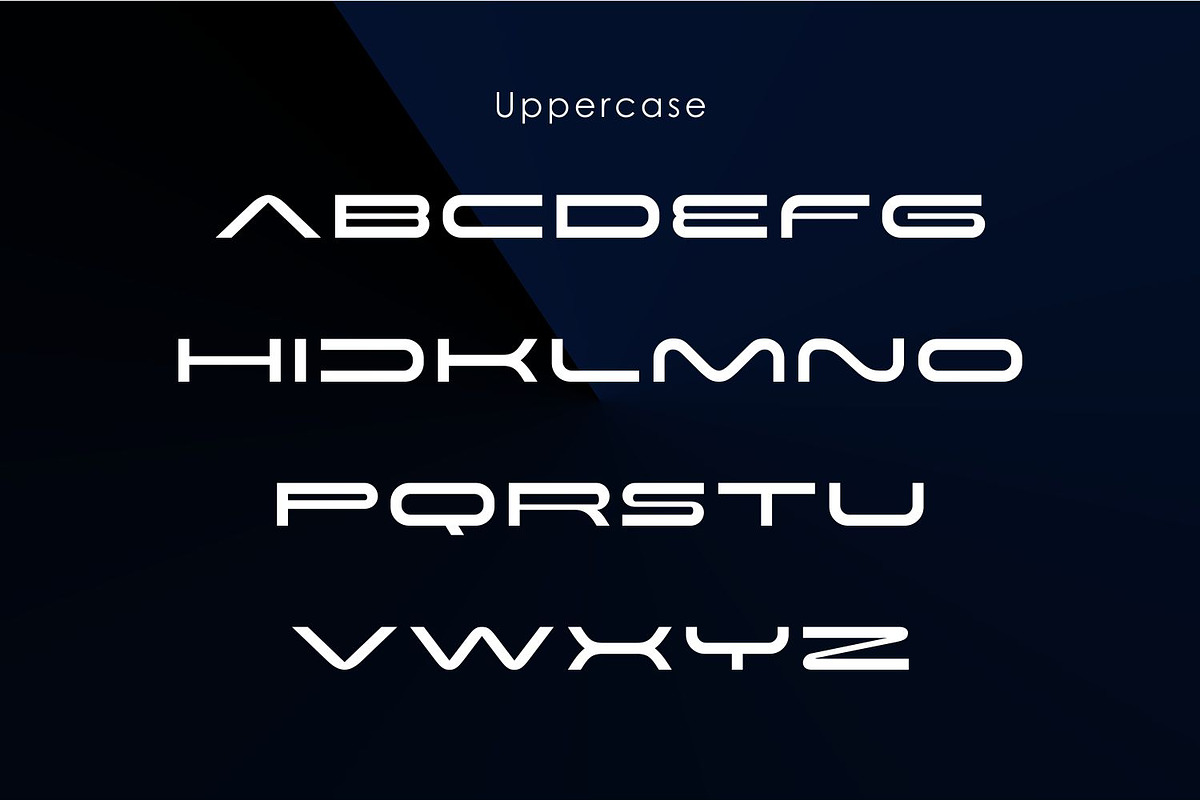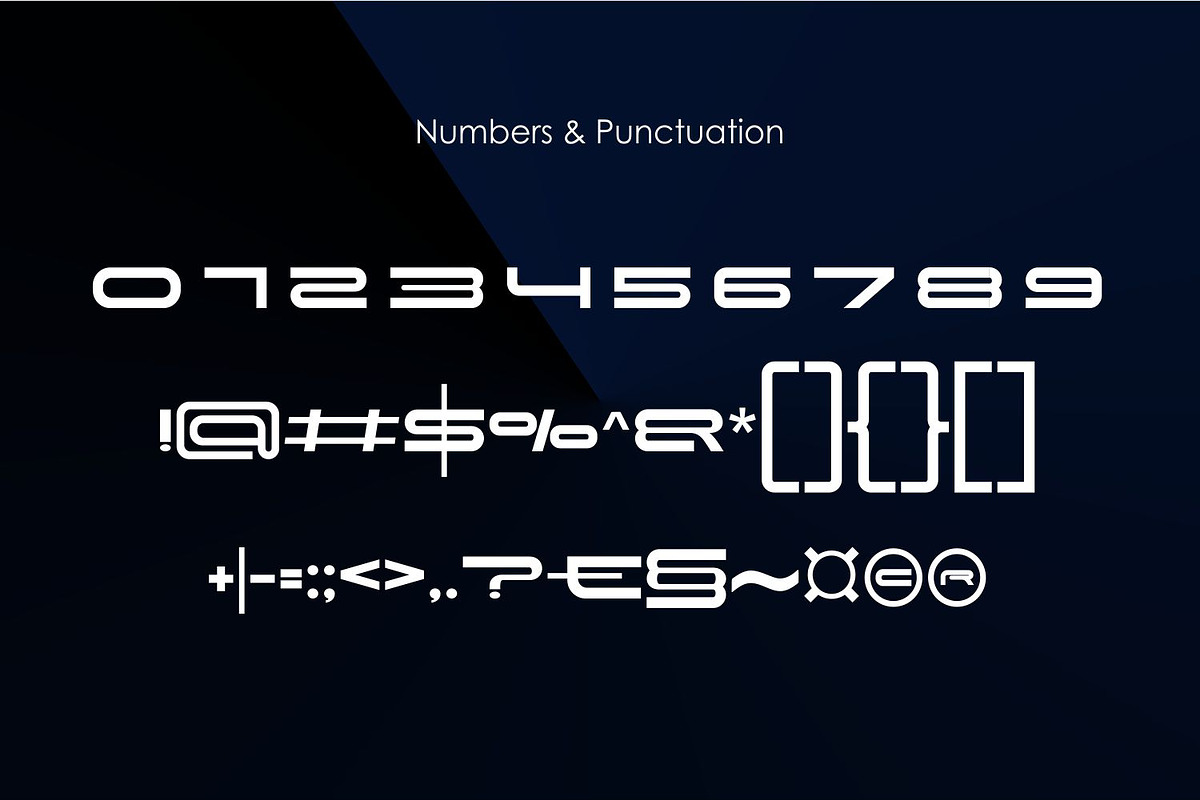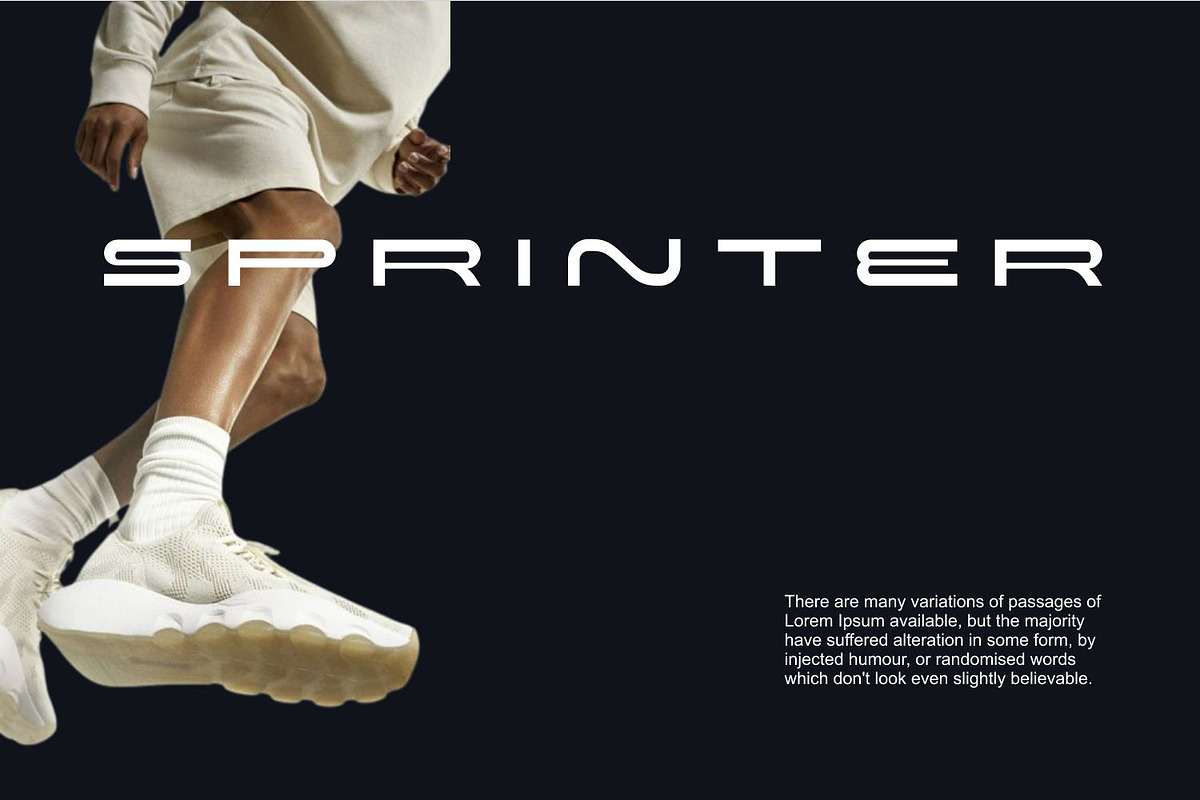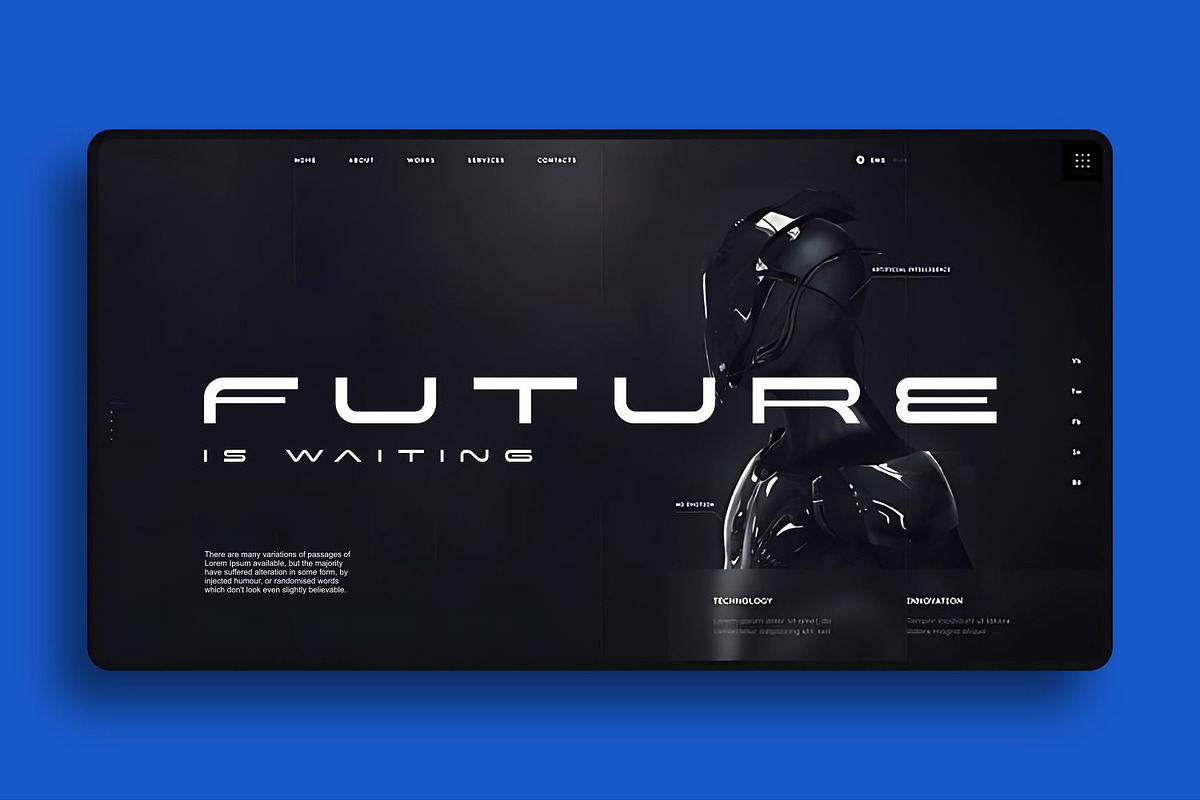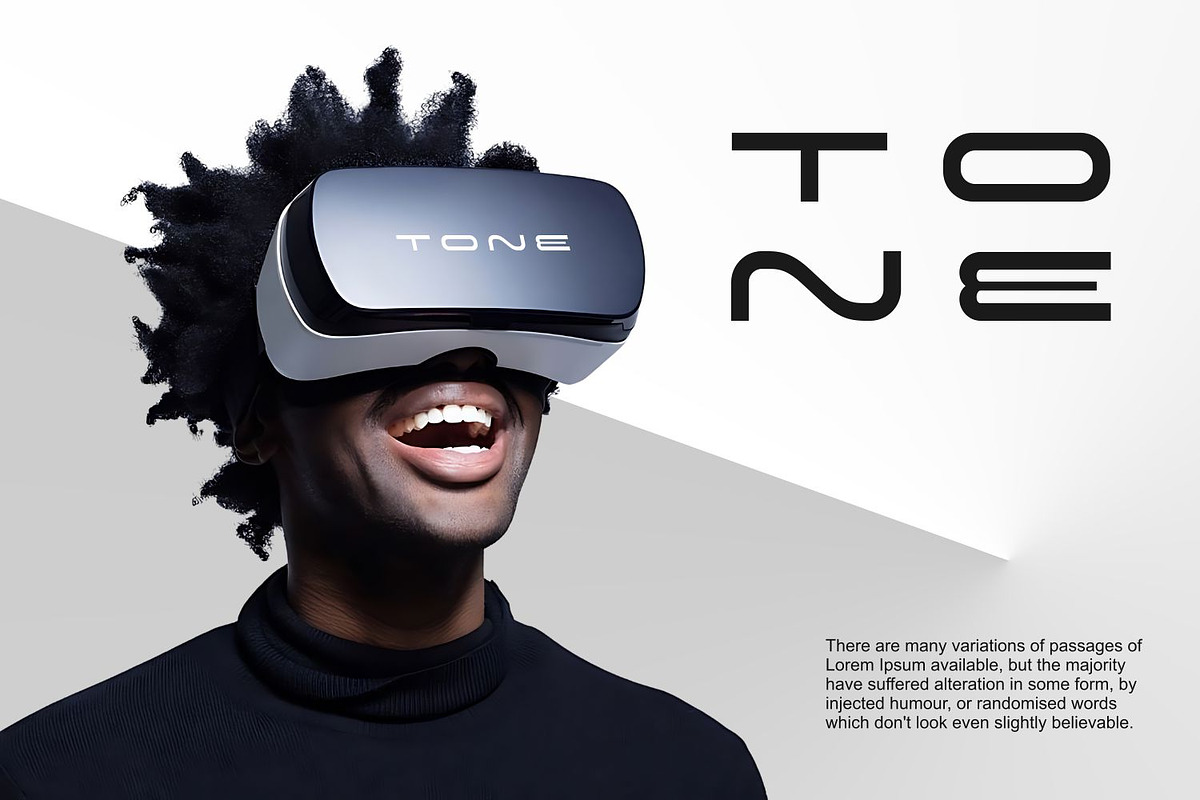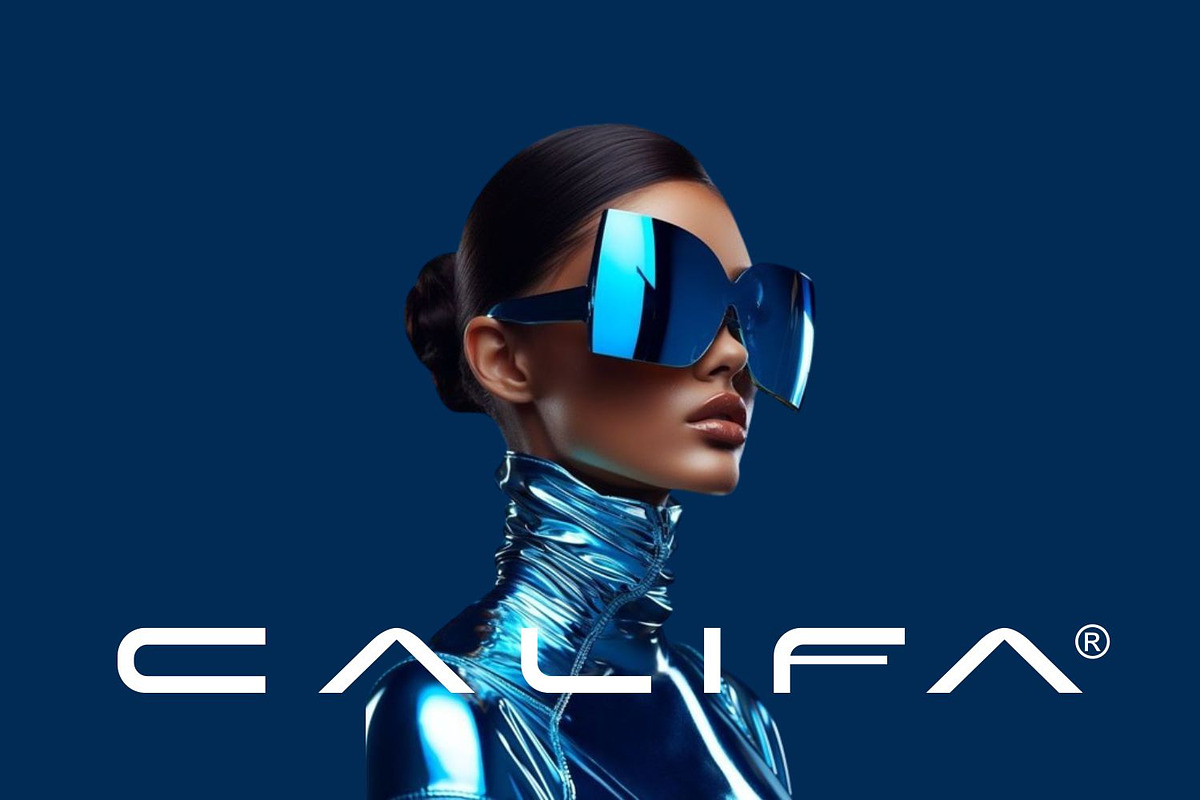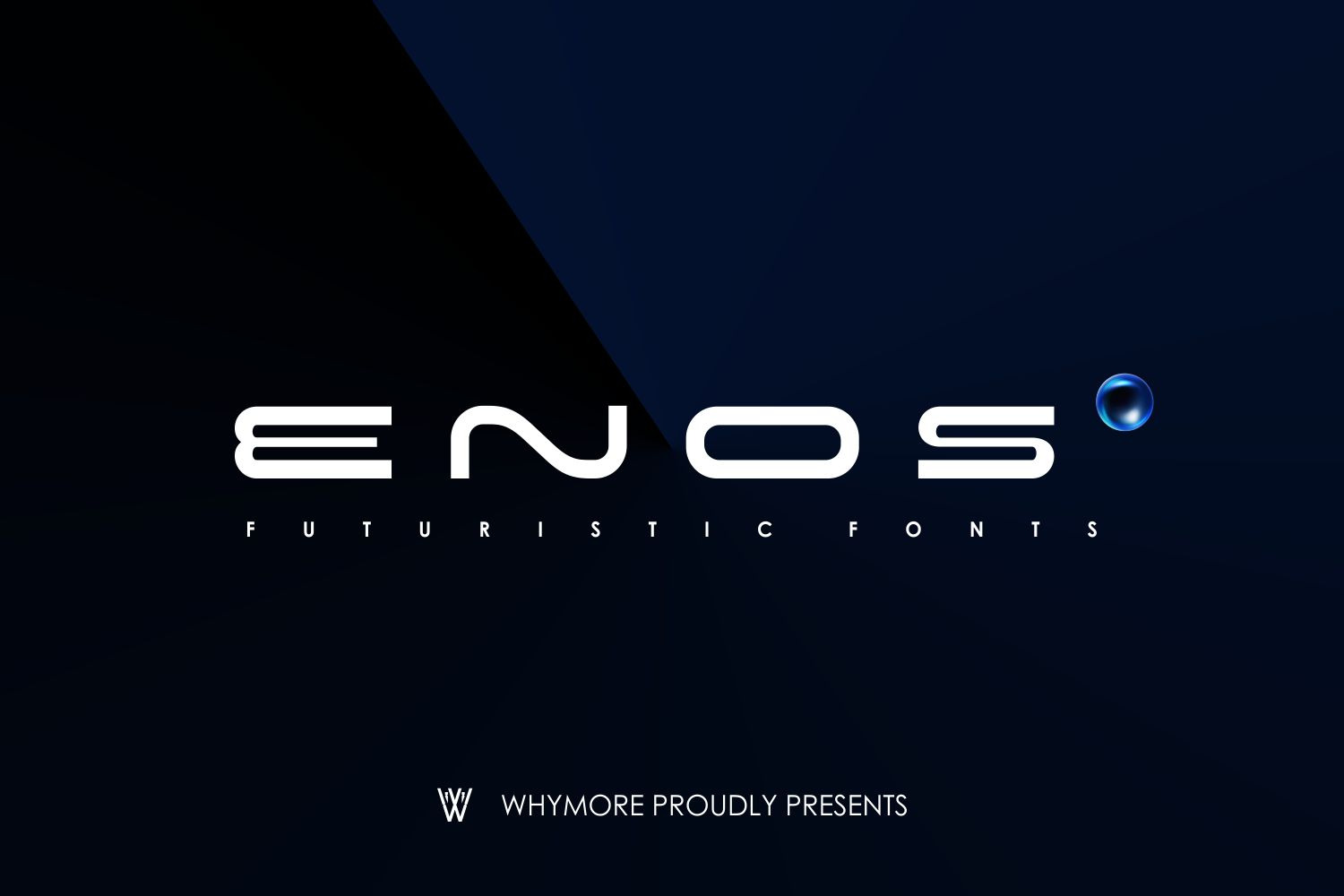
ENOS Sleek Futuristic Expanded Font
Embrace the Future of Typography with ENOS Fonts
Step into the future of design with ENOS fonts, a curated collection of unique and eye-catching typefaces. These fonts are your key to crafting visionary designs that capture attention and stand out in the competitive digital marketplace. Ideal for creatives who are always on the lookout for the latest in typographic innovation, ENOS empowers you to push the boundaries of your creative work.